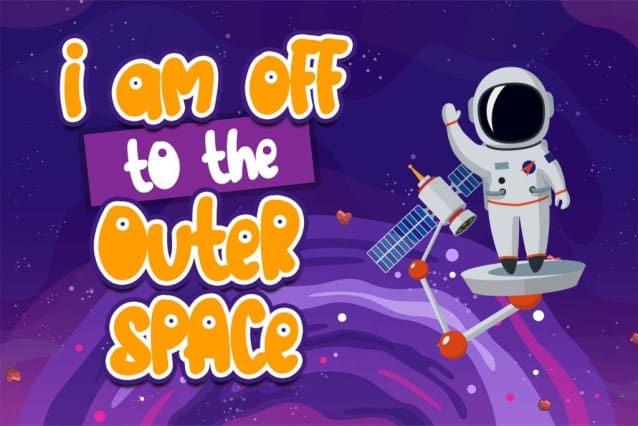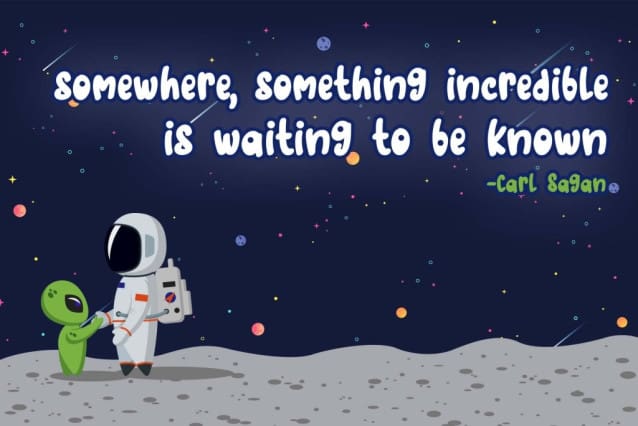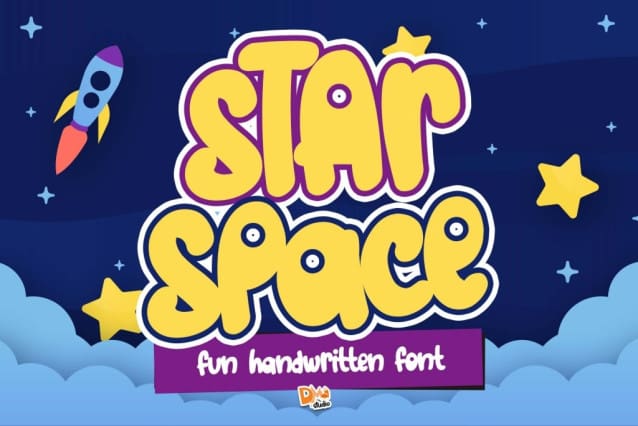
Star Space Font
Star Space Font is a captivating and versatile typeface crafted to evoke the celestial wonders of the cosmos. With its cosmic letterforms and futuristic style, this font is perfect for a myriad of design applications, including sci-fi branding, space-themed posters, digital interfaces, and more. Elevate your designs with the stellar and cosmic aesthetic of the StarSpace Font.